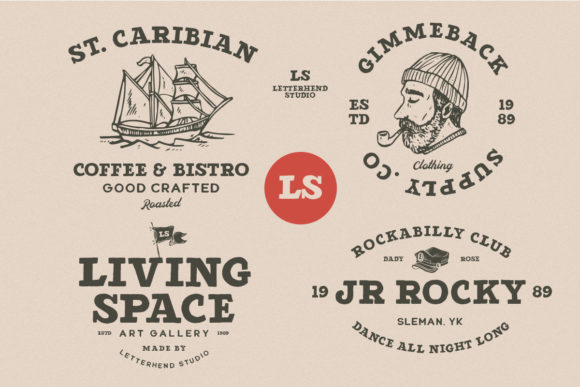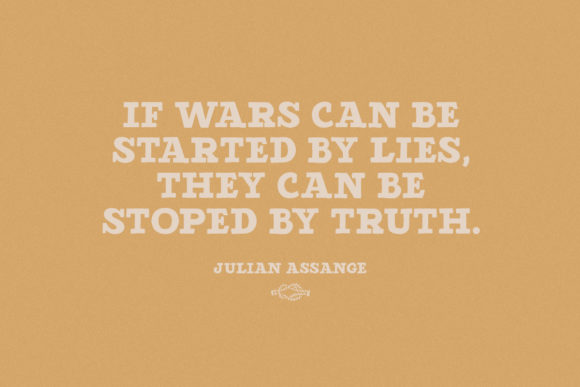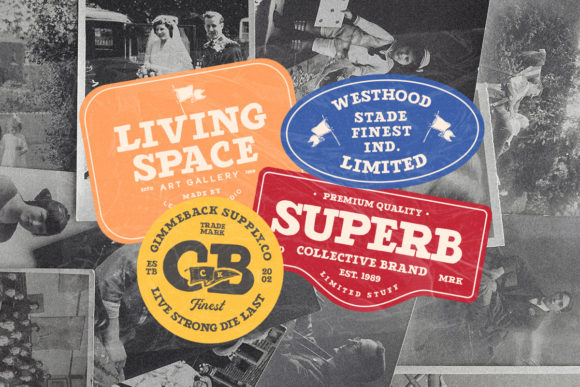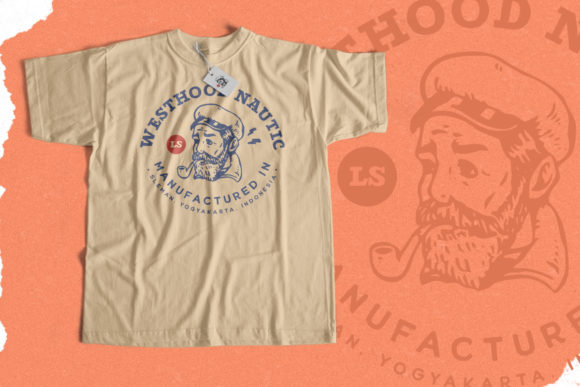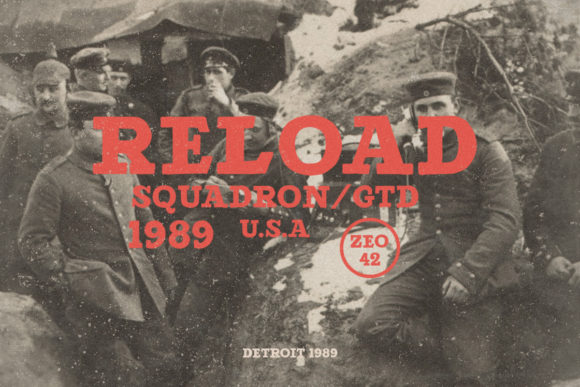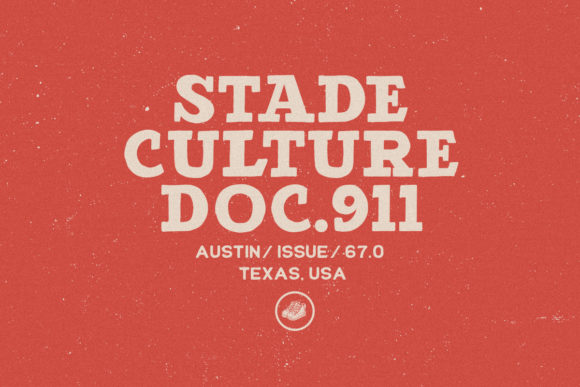
Introducing the Detroit Font: A Bold and Sophisticated Slab Serif
In the world of typography, a font can make or break a design. For designers and crafters looking for a bold and sophisticated look, the Detroit Font is a true must-have. This masterfully designed slab serif font features chunky and extended characters that are perfect for logos, branding, packaging design, and more.
The Characteristics of Detroit Font
The Detroit Font boasts a unique set of characteristics that set it apart from other fonts. Its chunky and extended characters give it a bold and eye-catching appearance, making it perfect for designs that need to stand out. The slab serif design adds a touch of sophistication, making it suitable for a wide range of applications, from luxury branding to packaging design.
When it comes to creating a logo or brand identity, the font used can make a significant impact. The Detroit Font is designed to be attention-grabbing and memorable, making it perfect for logos and branding. Its bold and chunky characters ensure that your brand stands out from the competition, while its sophisticated slab serif design adds a touch of elegance.
Packaging Design and Beyond
The Detroit Font is not just limited to logos and branding. Its versatility makes it suitable for a wide range of design applications, including packaging design, advertising, and more. Whether you’re designing a label for a product or creating an ad campaign, the Detroit Font is sure to make a statement.
Why Designers and Crafters Love the Detroit Font
Designers and crafters love the Detroit Font for its unique combination of boldness and sophistication. Its chunky and extended characters make it perfect for creating eye-catching designs, while its slab serif design adds a touch of elegance. The font is also highly versatile, making it suitable for a wide range of design applications.
Tips for Using the Detroit Font
To get the most out of the Detroit Font, here are a few tips to keep in mind:
- Use it for headlines and titles: The Detroit Font is perfect for grabbing attention, making it ideal for headlines and titles.
- Pair it with a sans-serif font: For body text, pair the Detroit Font with a sans-serif font to create a striking contrast.
- Experiment with colors: The Detroit Font looks great in bold colors, so don’t be afraid to experiment and find the perfect hue for your design.
In conclusion, the Detroit Font is a bold and sophisticated slab serif font that is perfect for designers and crafters looking to create eye-catching designs. Its chunky and extended characters make it perfect for logos, branding, packaging design, and more. With its versatility and unique characteristics, the Detroit Font is a true must-have for any designer or crafter looking to take their designs to the next level.
In the world of typography, the Detroit Font is a game-changer. Its bold and sophisticated design makes it perfect for a wide range of design applications. Whether you’re a designer, crafter, or simply someone who appreciates great design, the Detroit Font is definitely worth checking out.